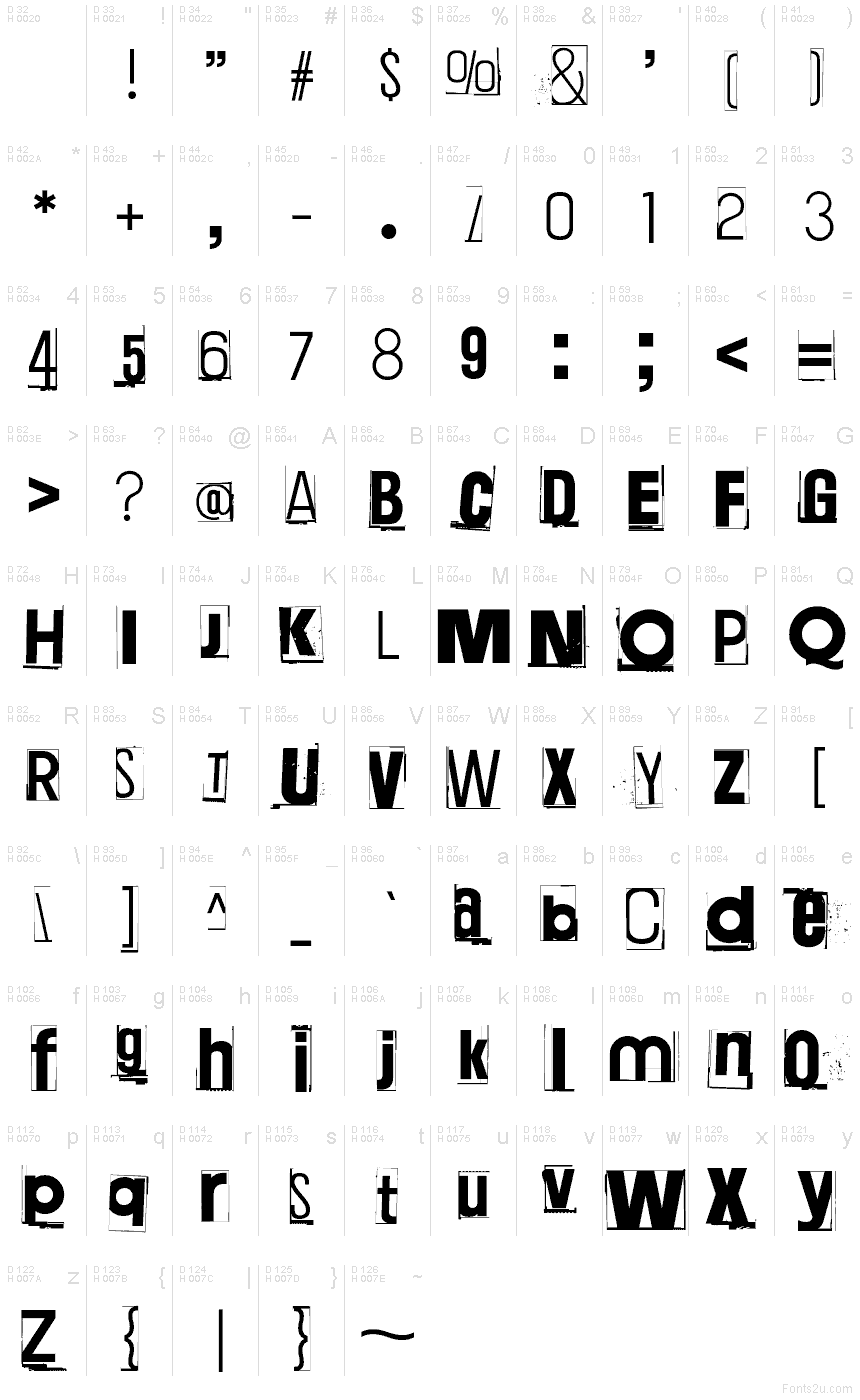
Quiet Broken Voice
Quiet Broken Voice font by Juha Korhonen is a bold display typeface with a distorted and distressed appearance. Its grunge style and high-impact design make it suitable for projects that require an edgy vibe. The font features rough texture lines that further add to its overall rough aesthetic.